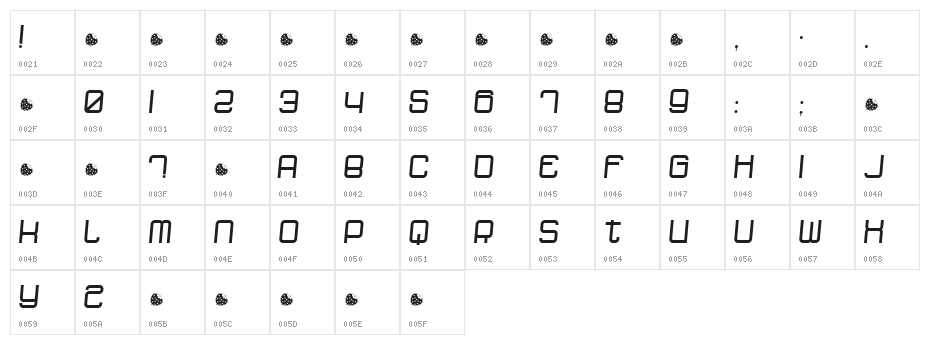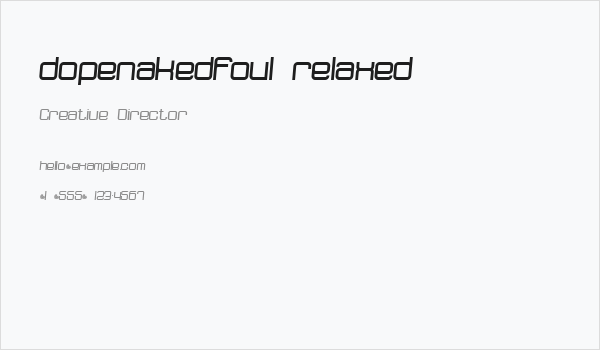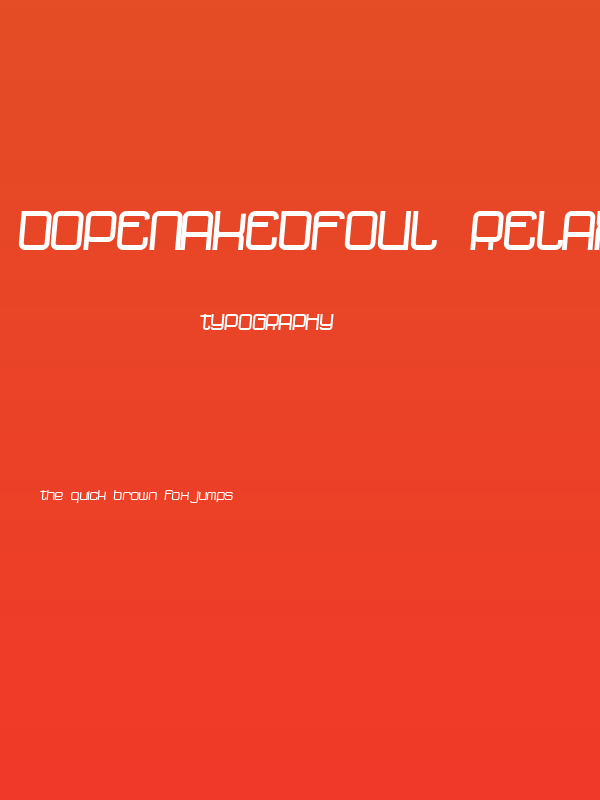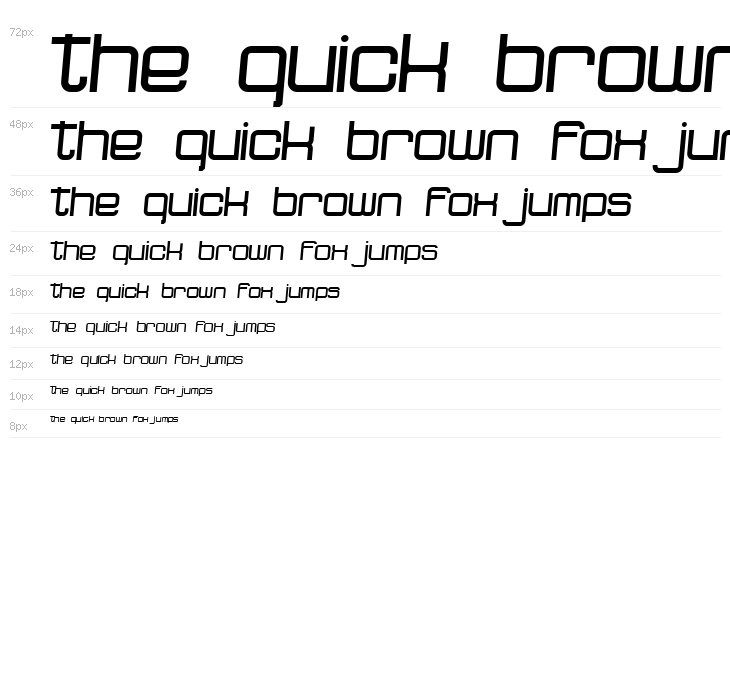
dopenakedfoul relaxed Font
dopenakedfoul relaxed Description
This font features a modern, geometric design with a futuristic flair. The characters are constructed with clean, straight lines and rounded corners, giving them a sleek and streamlined appearance. The uppercase and lowercase letters maintain a consistent height, contributing to a uniform look. The numerals are distinct and easily readable, while the special characters add a playful touch. The overall design is both functional and stylish, making it suitable for a variety of digital and print applications.
| Use Case | Headlines, Logos, Digital interfaces |
| Proposed Projects | Ideal for technology branding, digital interfaces, modern posters, and futuristic-themed projects. |